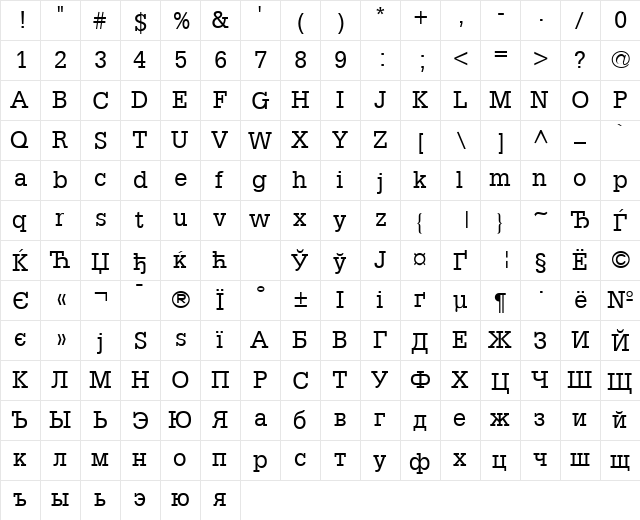
AGGloria Roman
Design Context for AGGloria Typeface
AGGloria takes a measured approach to typography — its balanced proportions and neutral character make it a reliable workhorse for both digital and print work.